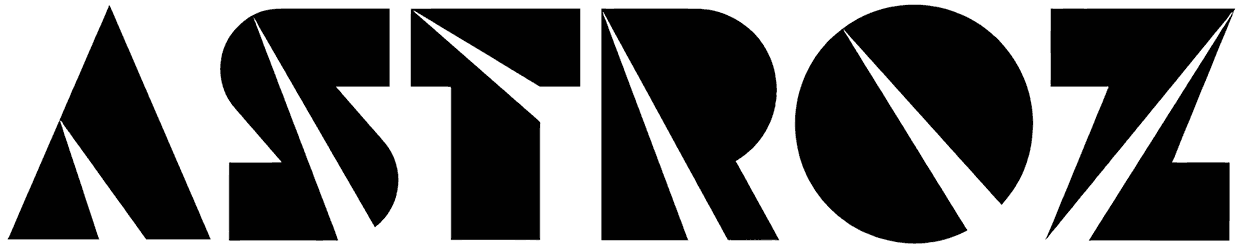
Astroz Font
Designed byGravitype
If you like to create a special and catchy look for a space project or any ultramodern one, don’t leave this option. As a sci-fi font, Astroz consists of unique bold letters with sharp edges. Even without lowercase letters, you can use this techno font for a lot of layouts, namely sports posters, science fiction designs, branding, or whatnot, and make them a technical mood.